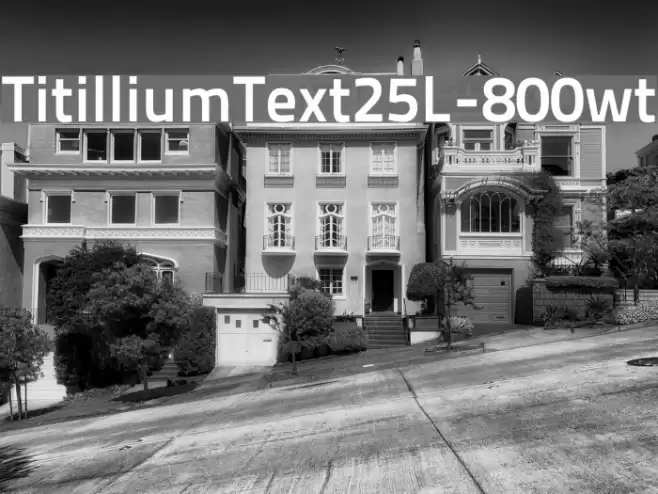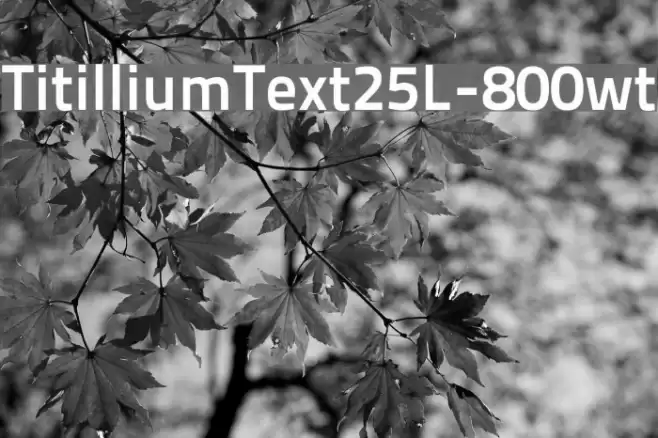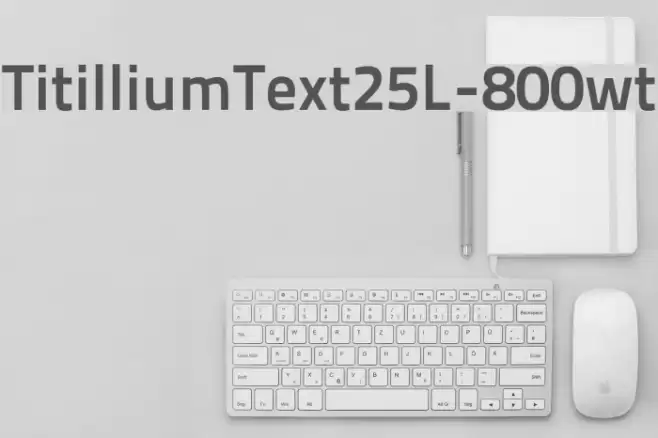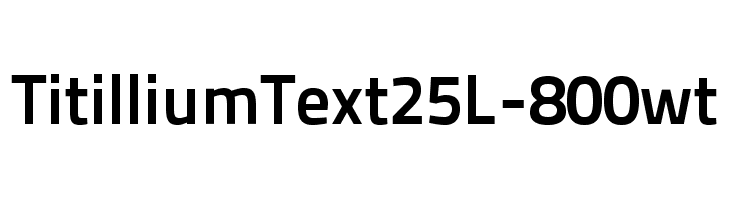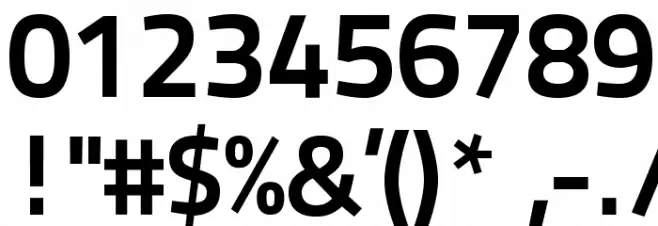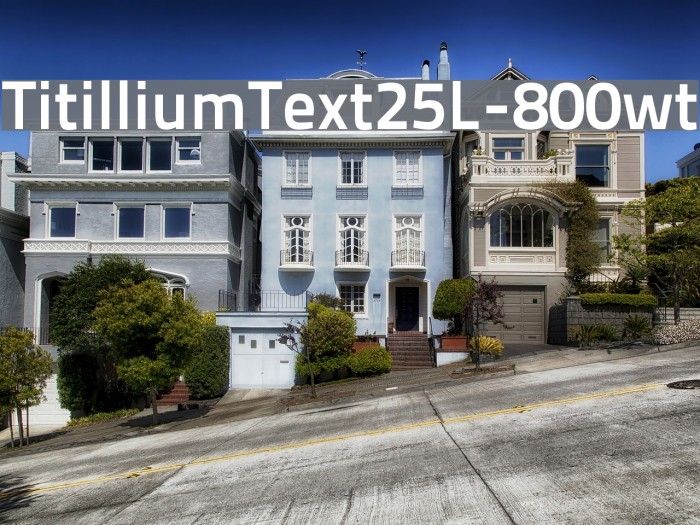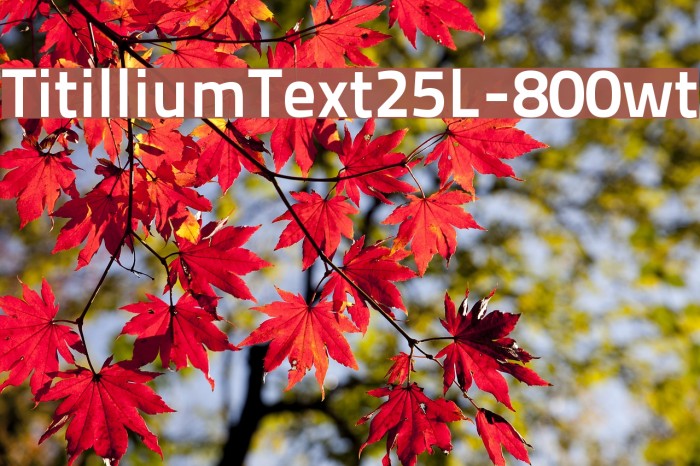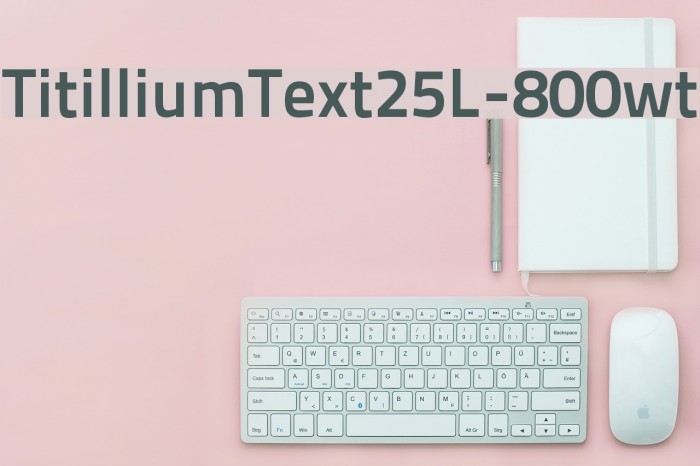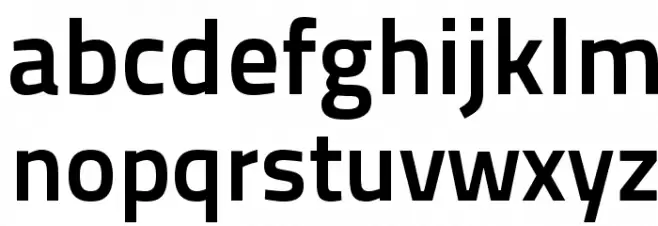
TitilliumText25L-800wt Font
TitilliumText25L-800wt Description
This font presents a clean and modern sans-serif style, characterized by its geometric shapes and uniform stroke widths. The uppercase letters are bold and assertive, while the lowercase letters maintain a consistent and harmonious appearance. The numerals are clear and easy to read, making them suitable for various applications. Special characters are well-defined, adding to the font's versatility. The overall design is sleek and contemporary, making it ideal for digital and print media.
A modern, geometric sans-serif font with uniform strokes and clear characters from Uncategorized fonts.
- Proposed Projects: Ideal for web design, branding, advertising, and editorial projects where clarity and modernity are key.